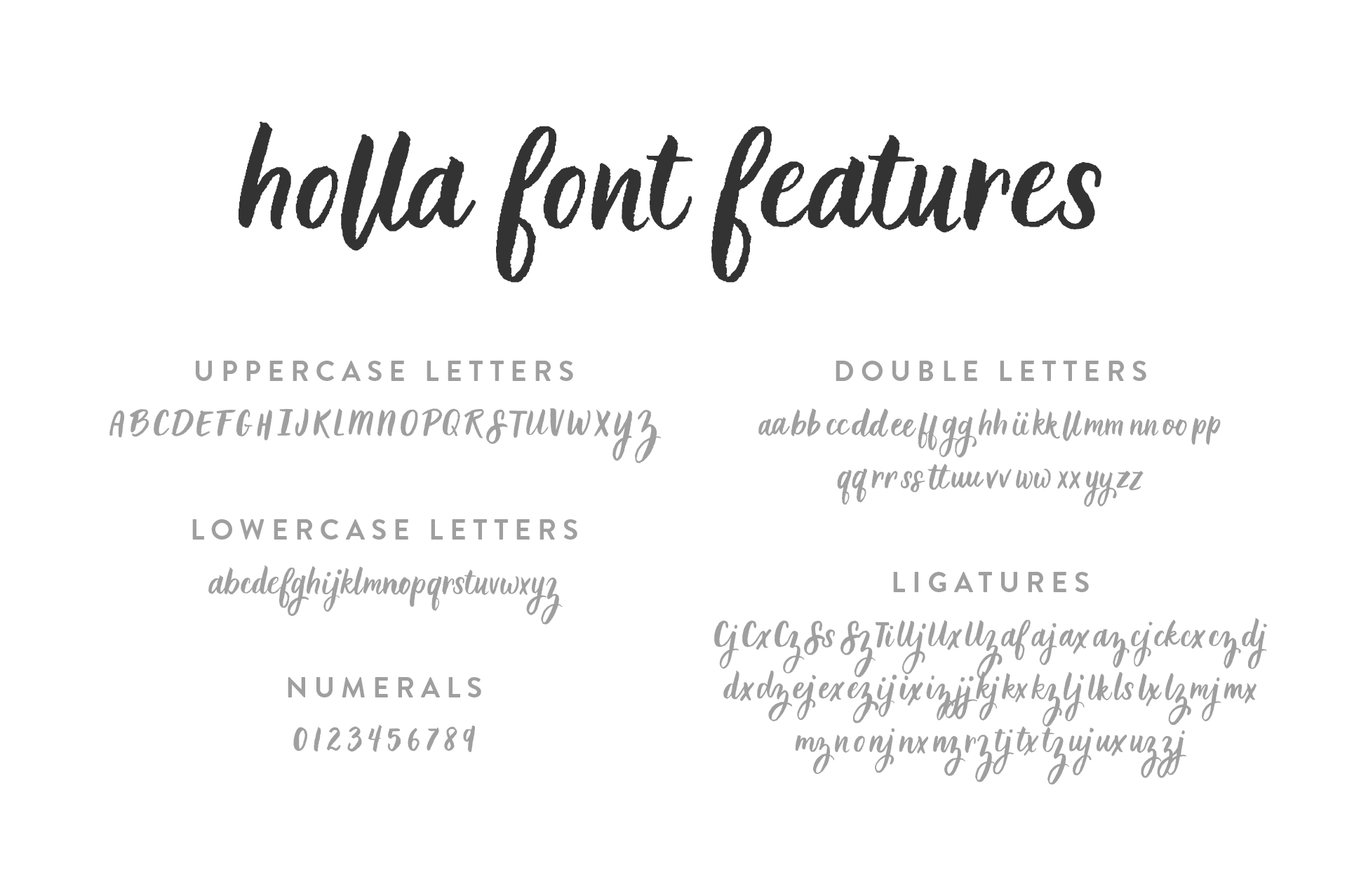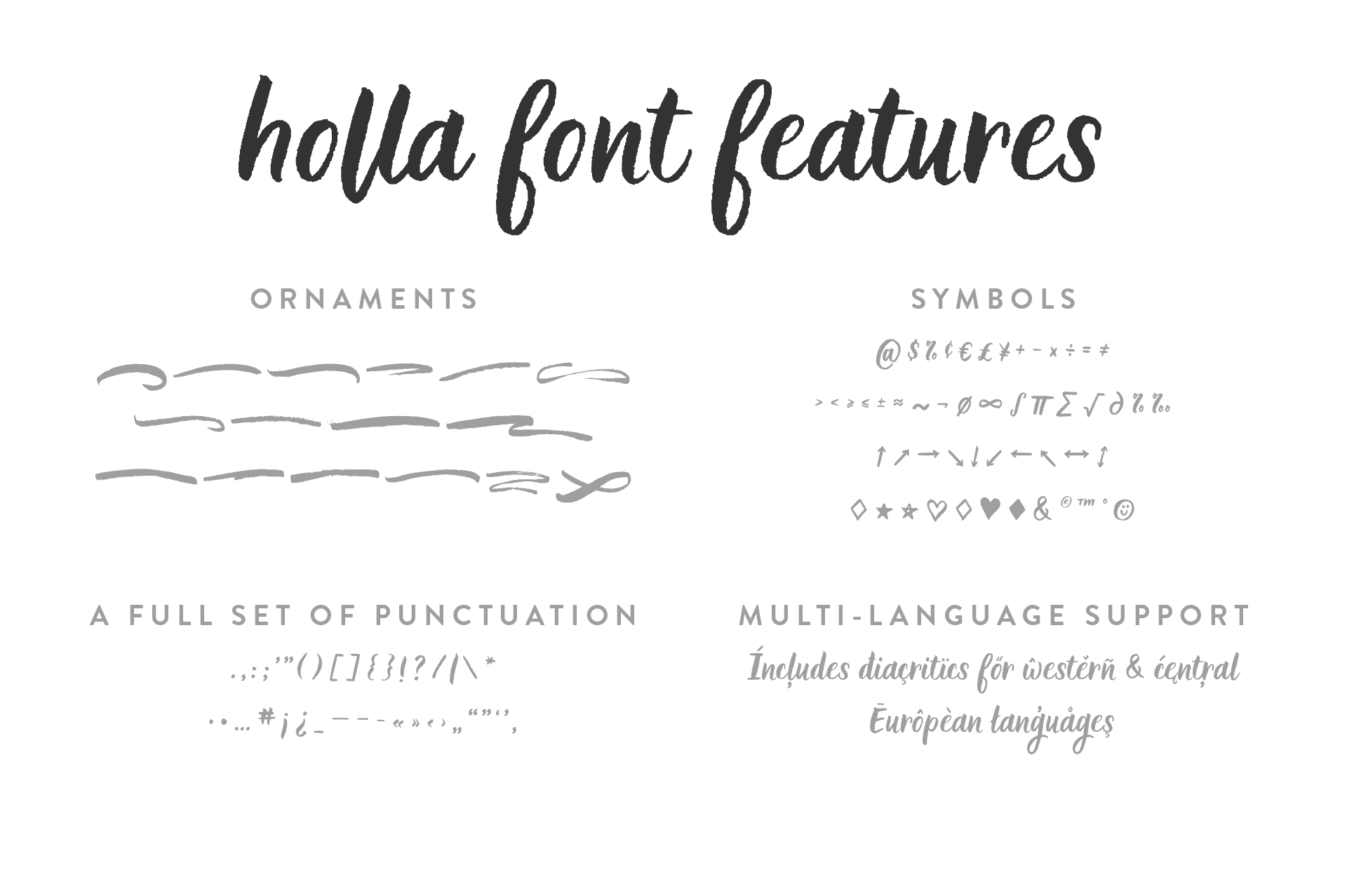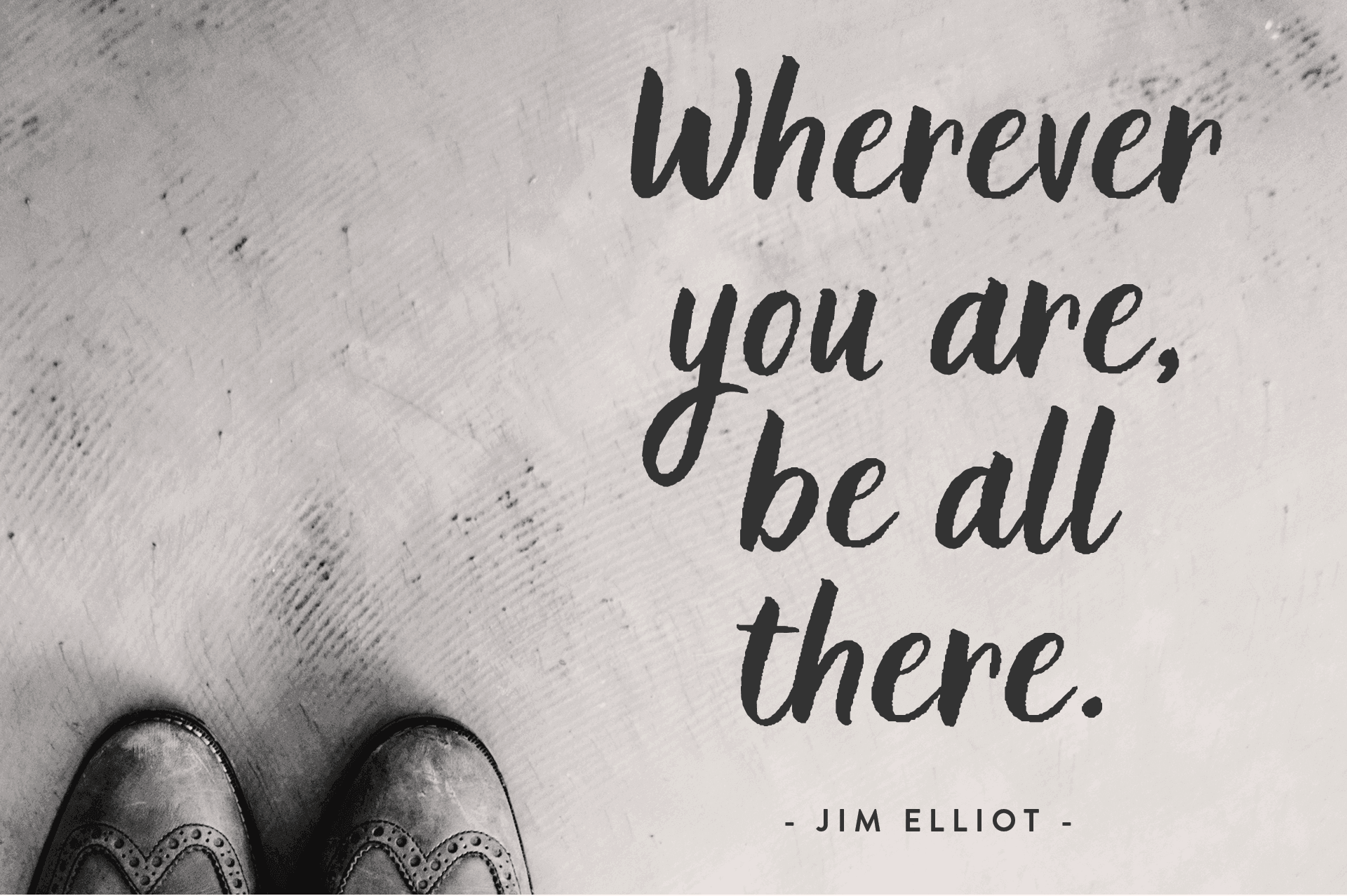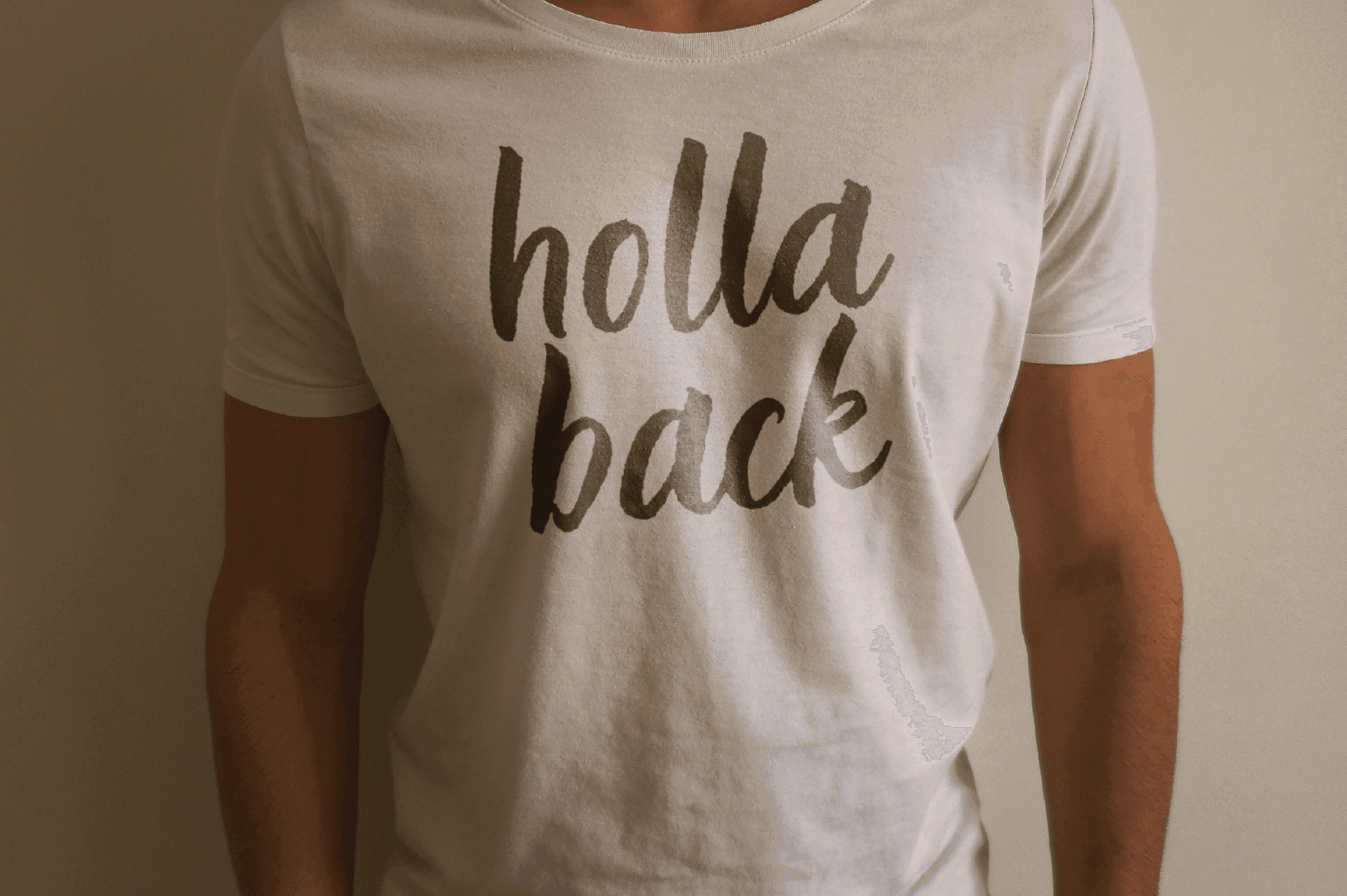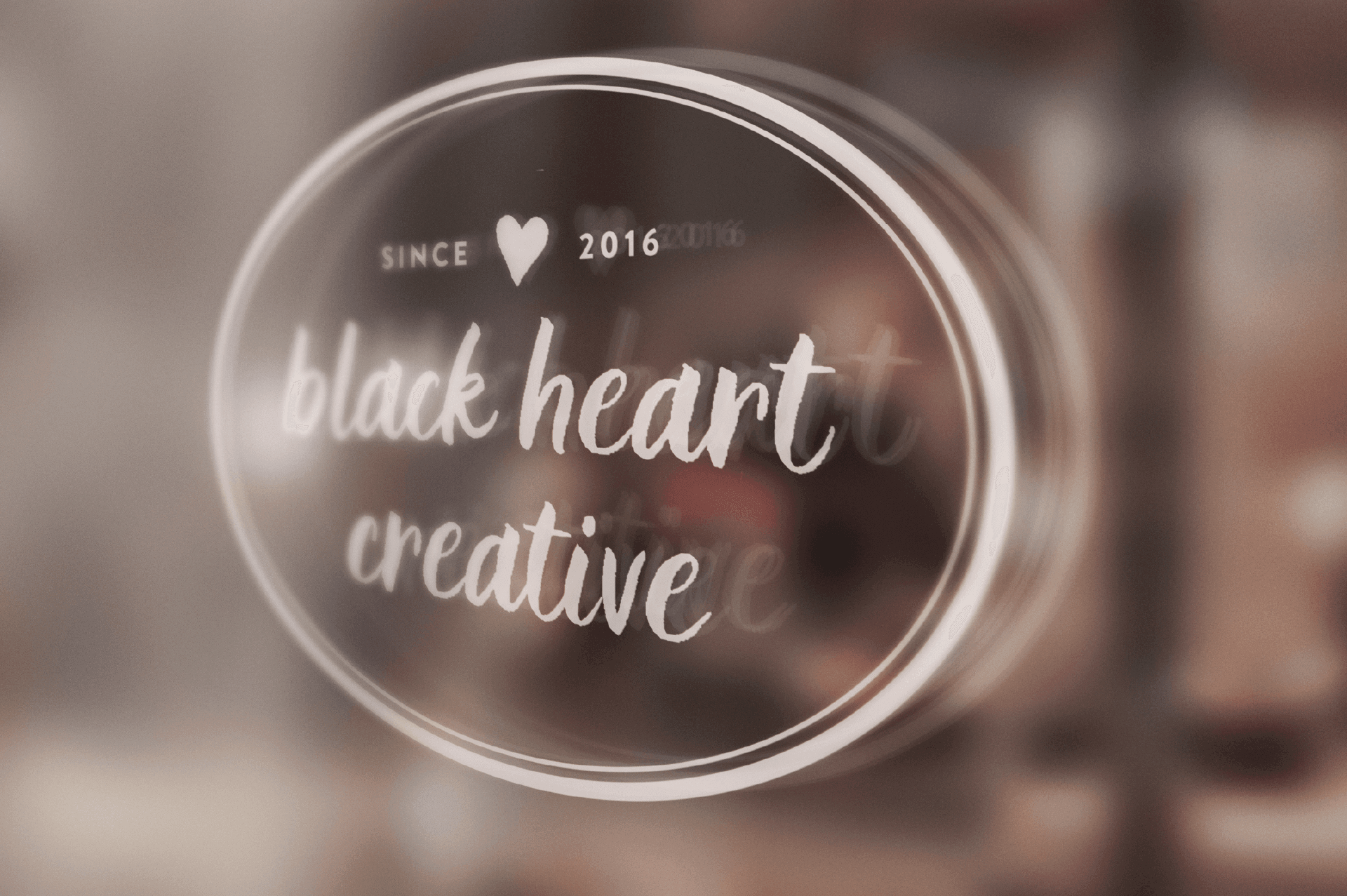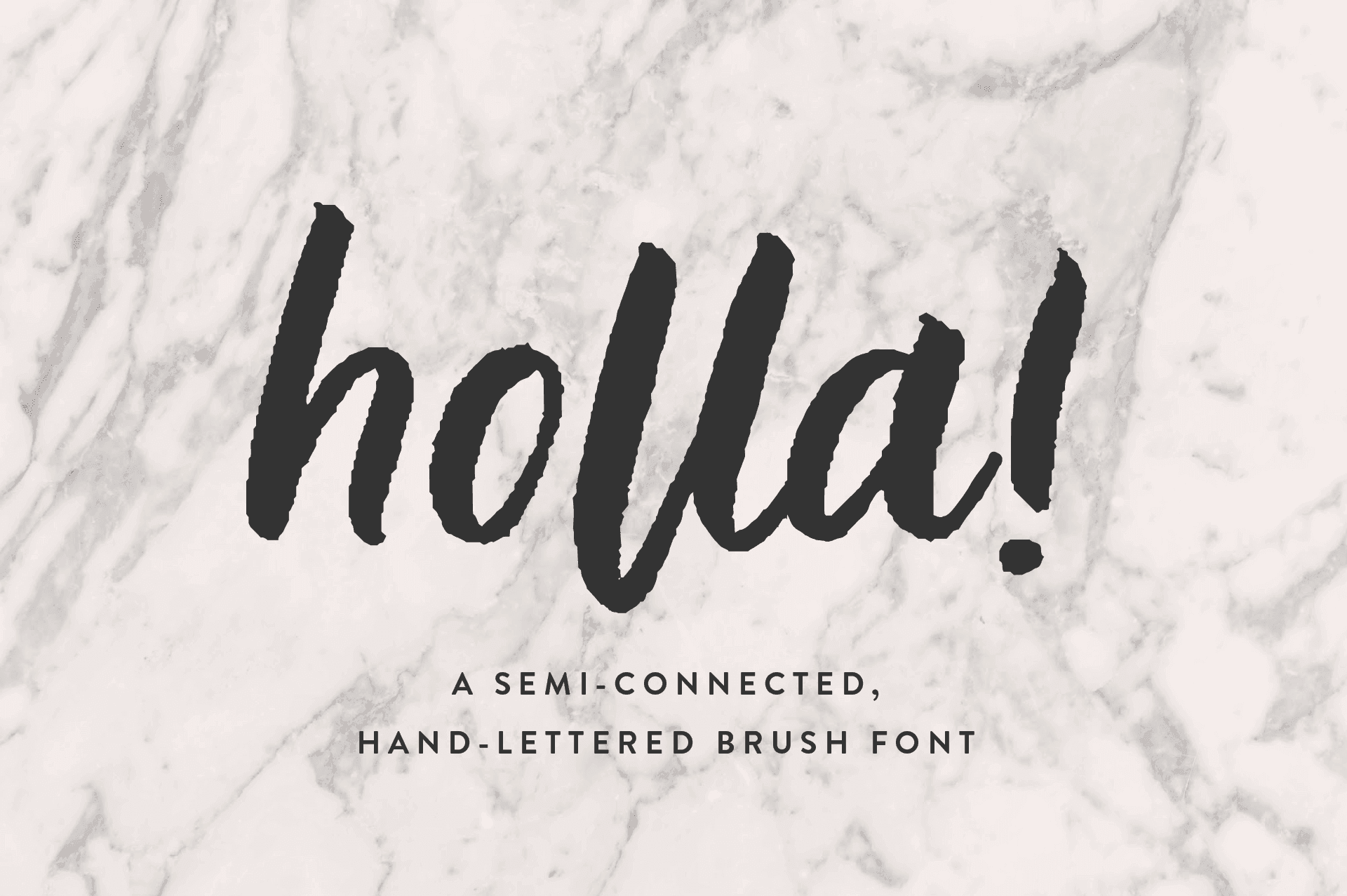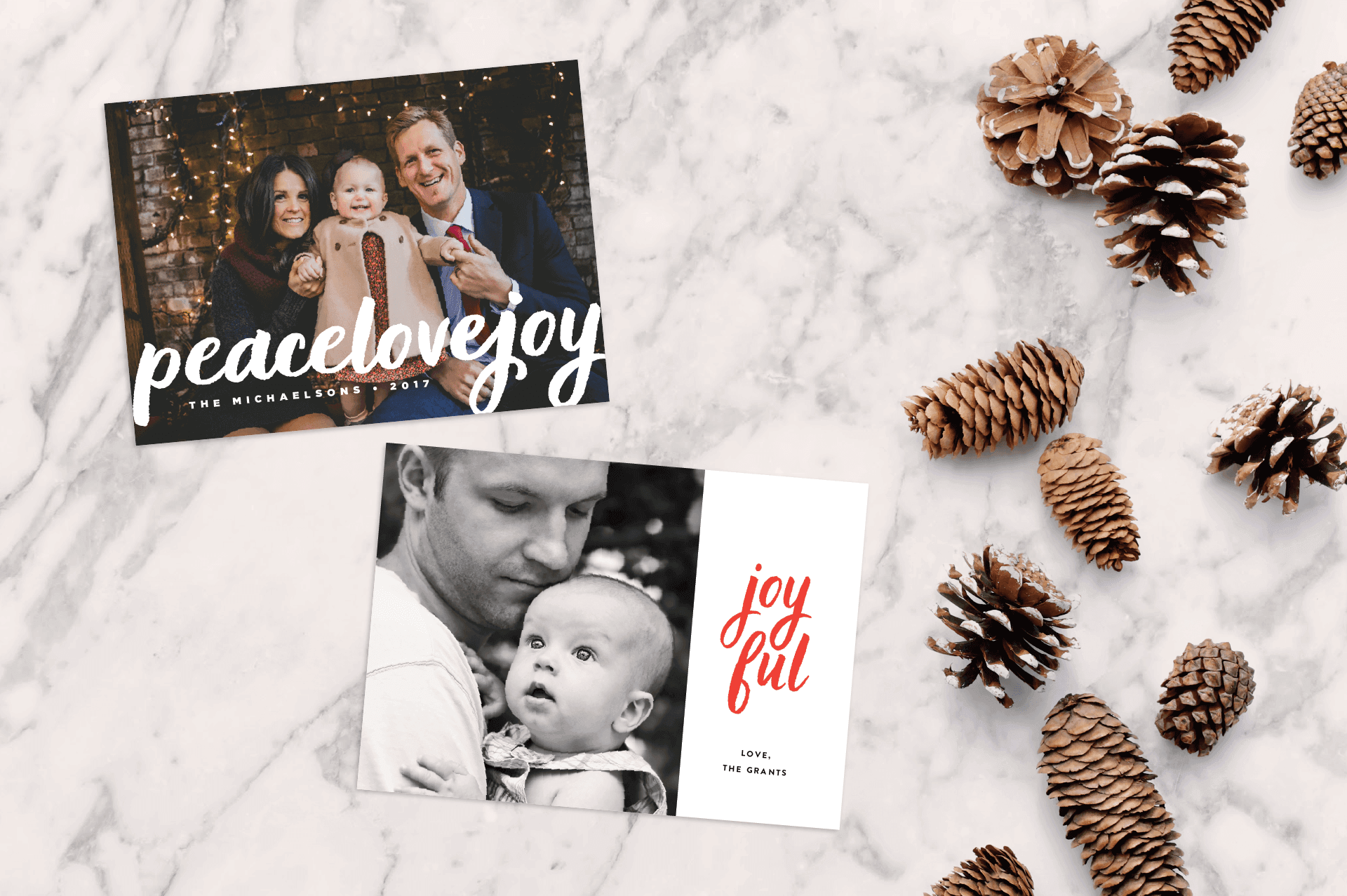
Holla Script Font
Holla Script Brush Font is a semi-connected, hand-lettered brush font. With its brush-textured charm, Holla is perfect for stationery, branding projects, editorial features, product packaging, and more.
Holla includes the following OpenType features:
- standard and discretionary ligatures
Includes 49 ligatures
- Includes 439 glyphs
- 1 Style, 1 Weight